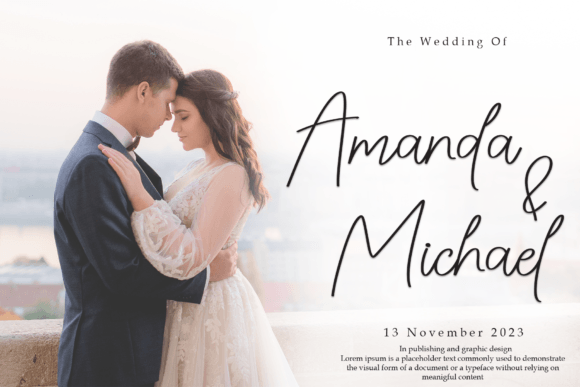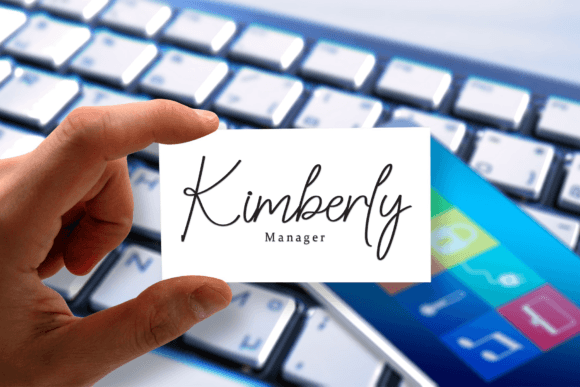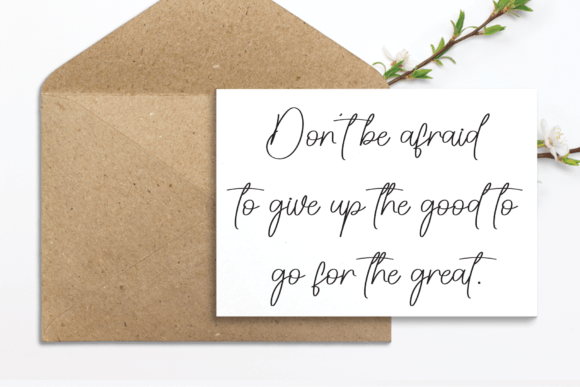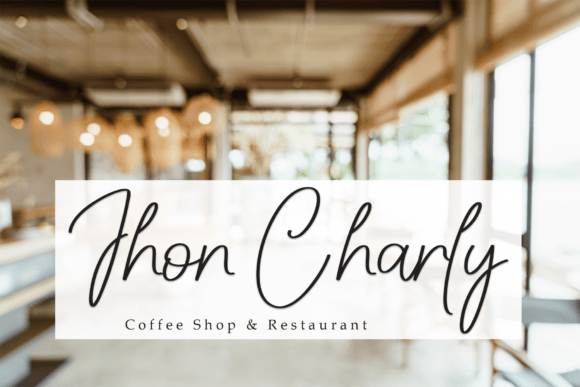
Beautyful Houshing Font Font
Beautyful Houshing is a sweet and friendly handwritten font. Its natural and unique style makes it incredibly fitting to a large pool of designs. The only limit is your imagination!